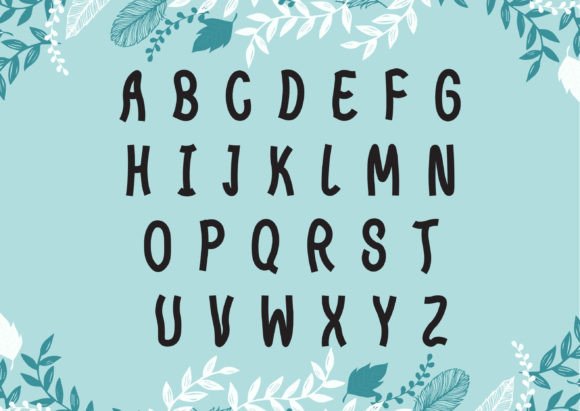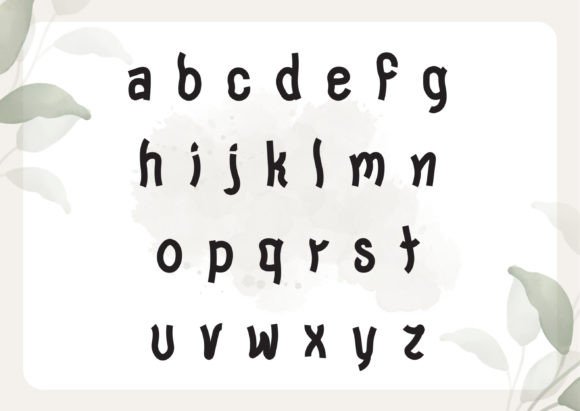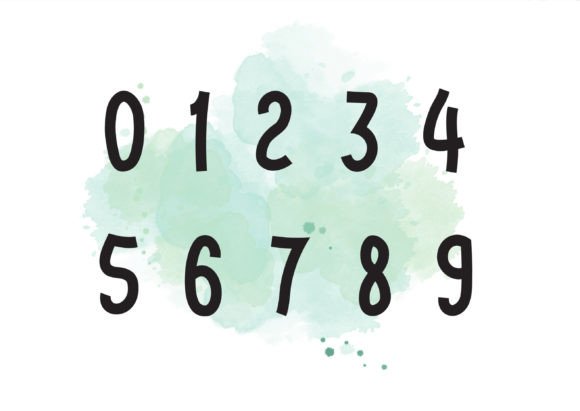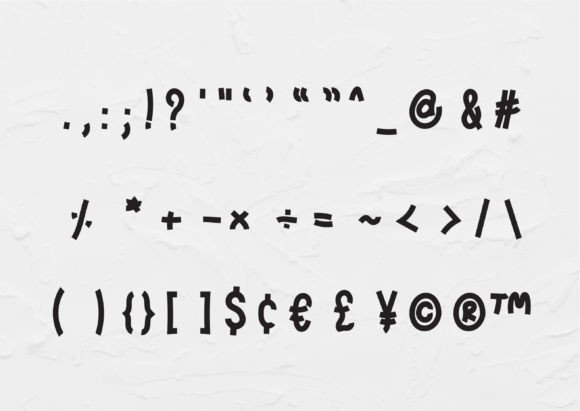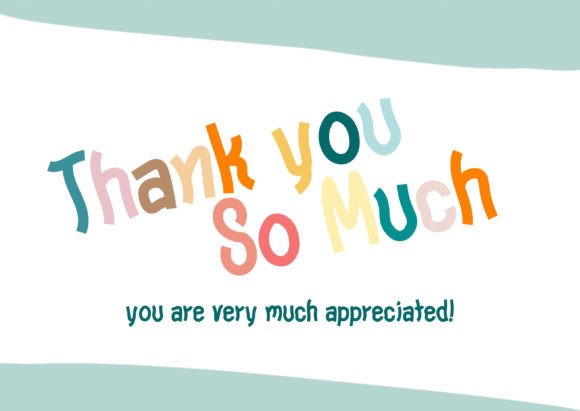
Introducing Always for You Font: The Perfect Addition to Your Design Collection
Are you a designer or crafter looking for a unique and playful font to add a personal touch to your creations? Look no further than Always for You Font! This fun and whimsical handwritten font is perfect for a variety of designs that require a personalized style, such as wedding invitations, thank you cards, greeting cards, logos, and more.
What Makes Always for You Font So Special?
Always for You Font is a one-of-a-kind font that stands out from the rest. Its whimsical and handwritten style gives it a personal and friendly feel that’s sure to capture the attention of your audience. The font’s unique characteristics make it perfect for designs that require a touch of elegance and sophistication, while still maintaining a playful and fun vibe.
Perfect for a Variety of Designs
Always for You Font is incredibly versatile and can be used for a wide range of designs, including:
• Wedding invitations: Add a touch of romance and whimsy to your wedding invitations with this beautiful font.
• Thank you cards: Show your appreciation with a personalized thank you card featuring Always for You Font.
• Greeting cards: Create unique and special greeting cards for birthdays, holidays, and other occasions.
• Logos: Use Always for You Font to create a custom logo for your business or brand.
• Stationery: Add a personal touch to your stationery with this beautiful font.
Why Choose Always for You Font?
There are many reasons why Always for You Font is the perfect choice for your design needs. Here are just a few:
• Unique and eye-catching: Always for You Font is a one-of-a-kind font that will make your designs stand out from the rest.
• Personal and friendly: The font’s handwritten style gives it a personal and friendly feel that’s perfect for designs that require a touch of warmth and personality.
• Versatile: Always for You Font can be used for a wide range of designs, from wedding invitations to logos and more.
• Easily readable: The font is easy to read, making it perfect for designs that require a clear and concise message.
Tips for Using Always for You Font
Here are a few tips for using Always for You Font in your designs:
• Pair it with other fonts: Always for You Font pairs well with other fonts, so don’t be afraid to experiment with different combinations.
• Use it for headings and titles: The font’s unique style makes it perfect for headings and titles, where you want to make a statement.
• Add some flair: Use Always for You Font to add some flair to your designs, such as in a decorative border or accent.